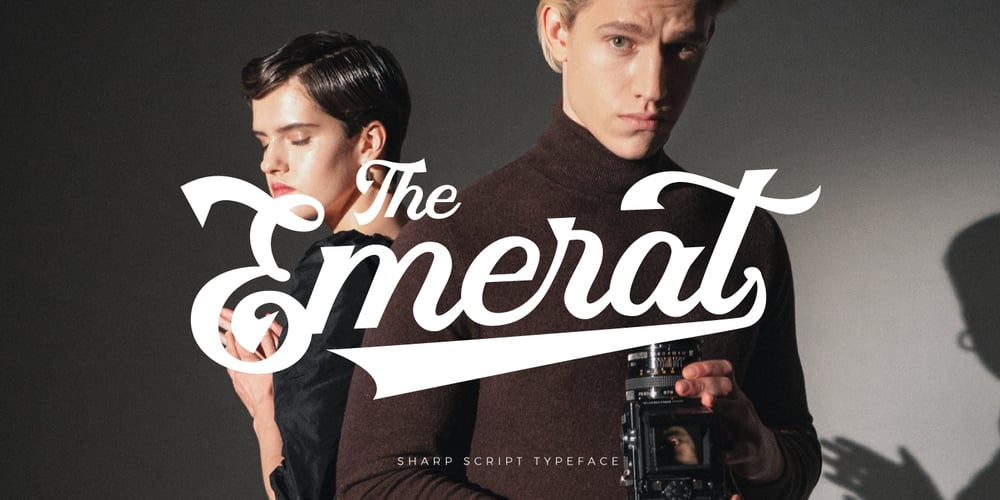
Emerat
Emerat font
Emerat Font Family was designed by Hendra Maulia and published by Dirtyline Studio. Emerat contains 1 styles and family package options. Emerat is sharp script style, So beautiful on logo, invitation like greeting cards, branding materials, business cards, quotes, posters, and more!The alternative characters were divided into several features such as Stylistic Sets, Stylistic Alternates, Contextual Alternate, SWASH and Ligature. The Open Type features can be accessed by using Open Type savvy programs such as Adobe Illustrator, Adobe InDesign, Adobe Photoshop Corel Draw X version, And Microsoft Word. And this Font has given PUA unicode (specially coded fonts). so that all the alternate characters can easily be accessed in full.